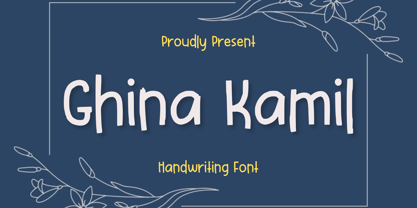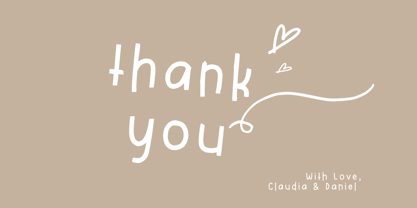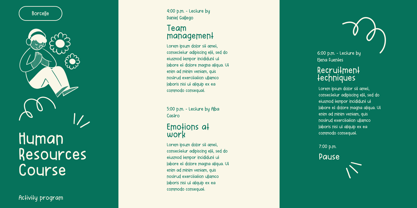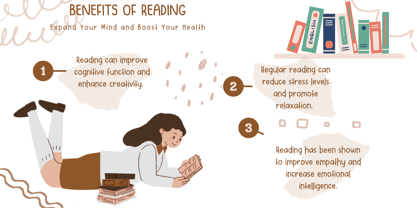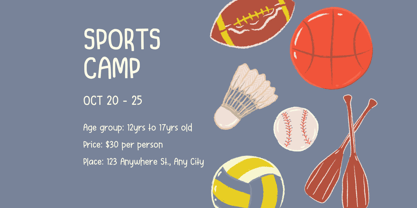
Ghina Kamil
by Aisyah
The Ghina Kamil Font Family was designed by Nur Aiysah Amalia and published by Aisyah. Ghina Kamil contains 1 styles. More about this family
Introducing 'Ghina Kamil' - an understated, yet impactful font that exudes an air of enthusiastic creativity. Its slightly bold lines add a unique flair, making this font a favorite amongst those engaging in craft-related endeavors. Its versatility allows for endless possibilities, making it the ideal choice for designers dabbling in diverse creative projects. Handwriting Bold invites a touch of handmade charm to any work it graces, effortlessly blending simplicity with a dash of bold individuality.